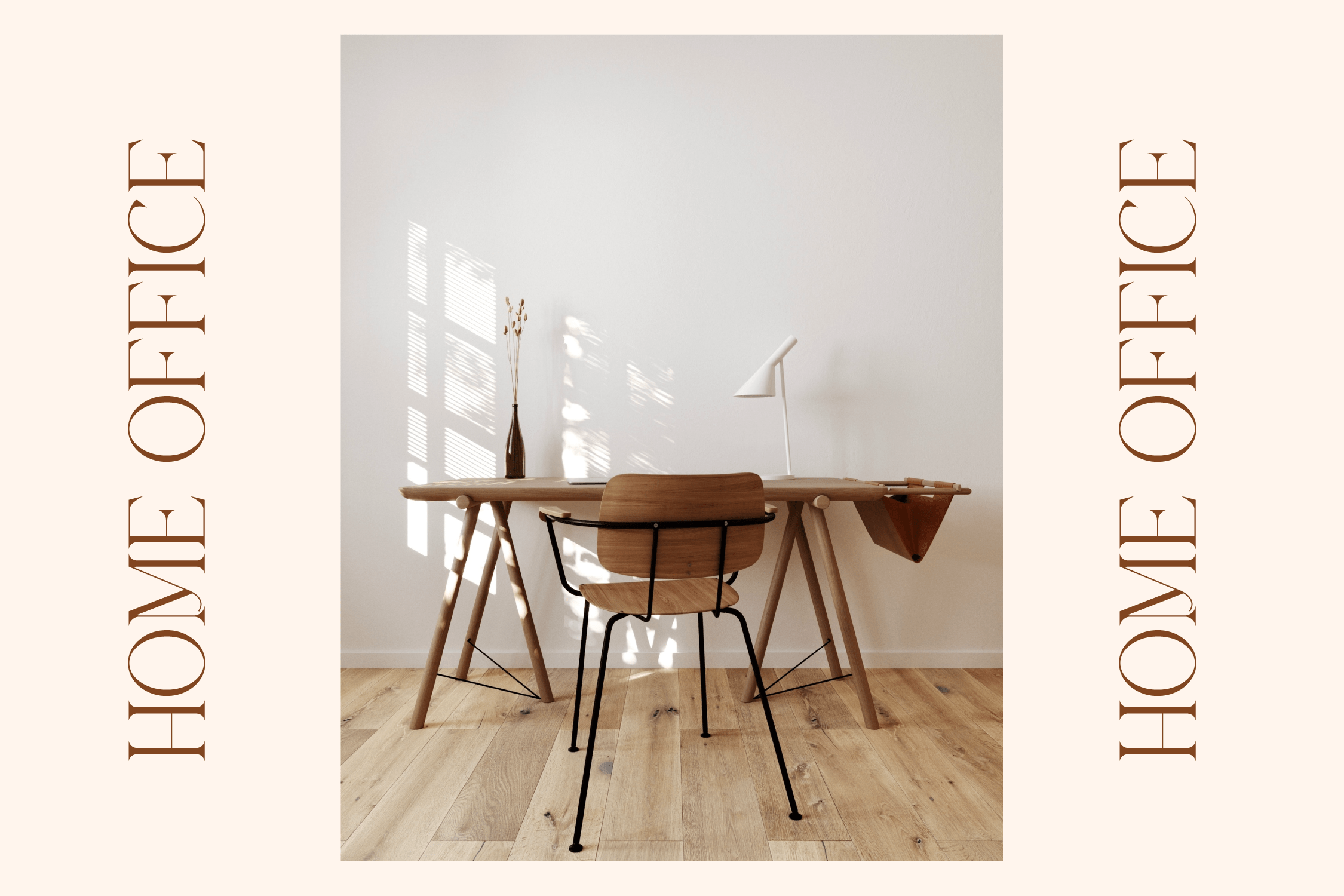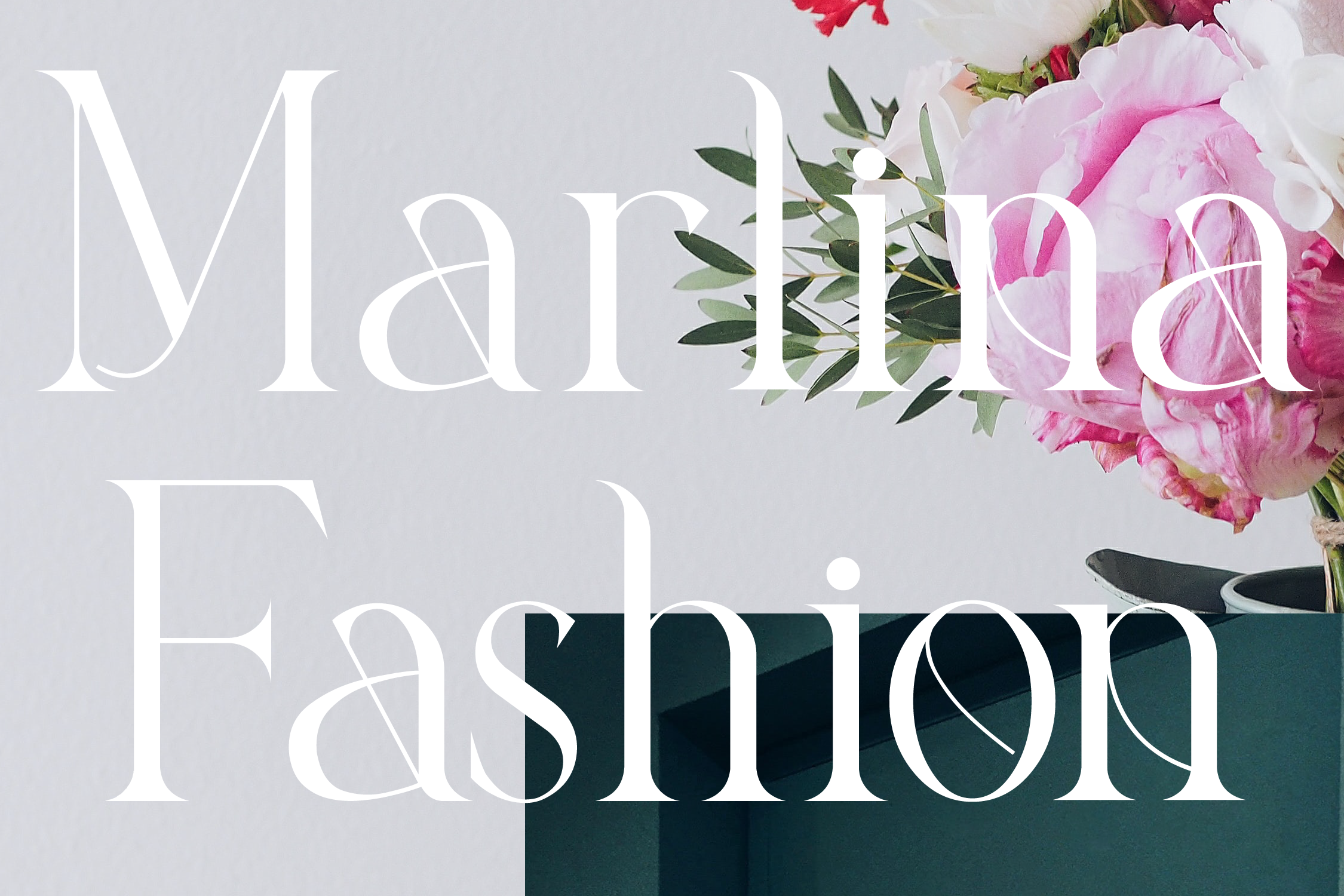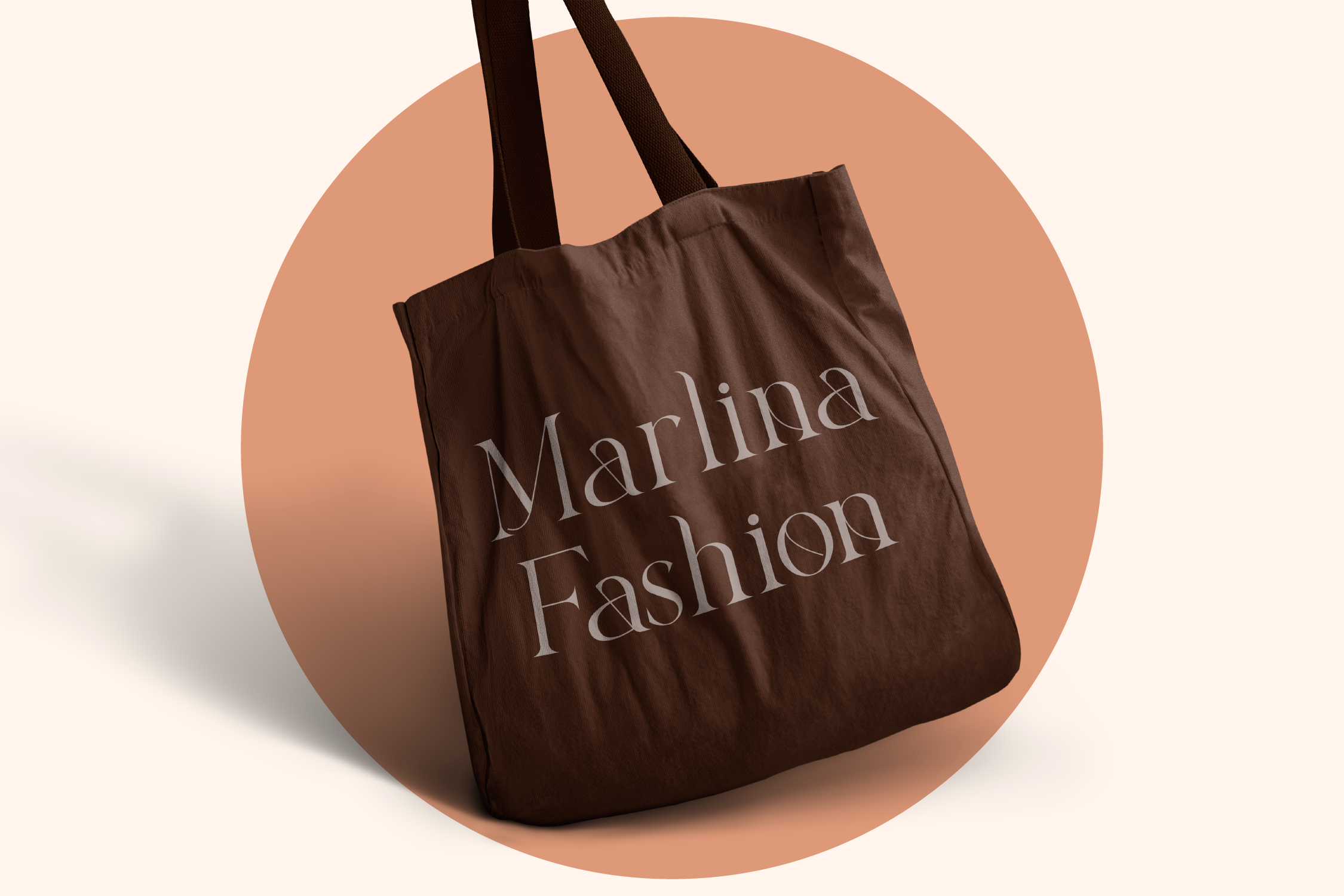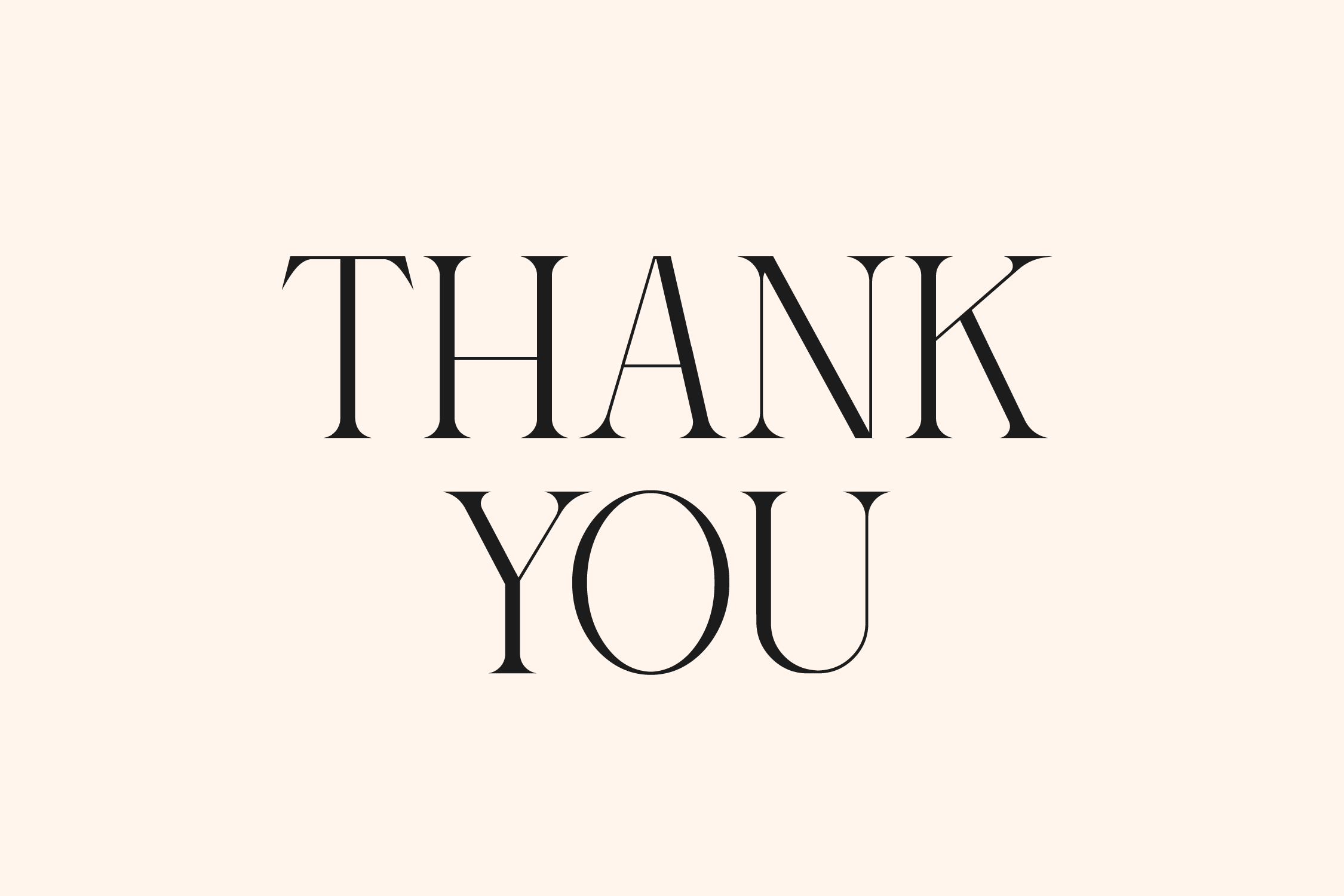
Balona Serif Font is a serif typeface that has a unique look. This typeface is perfect for logos, book or movie title designs, fashion brands, magazines, clothing, fonts, quotes and more.